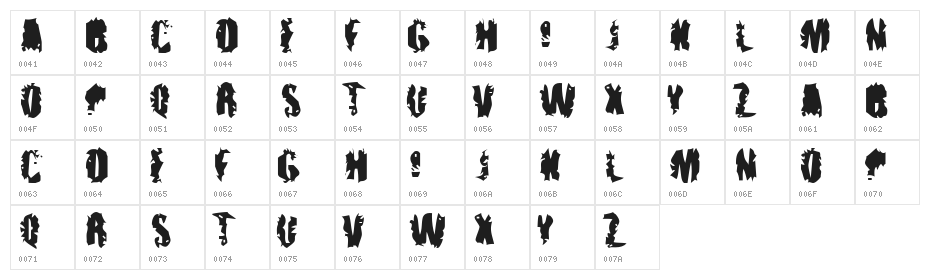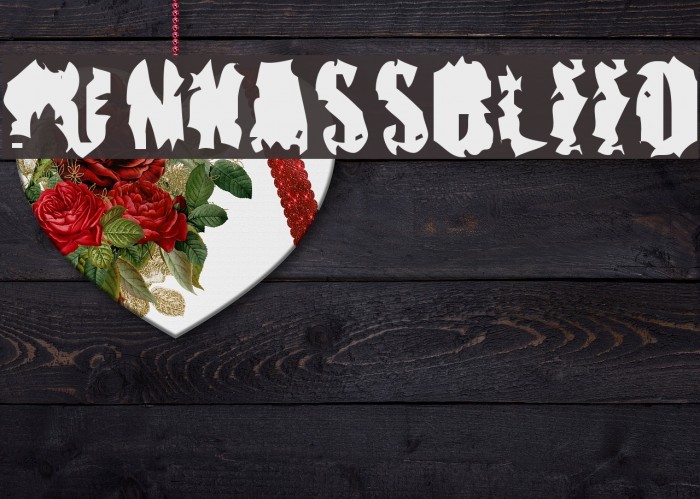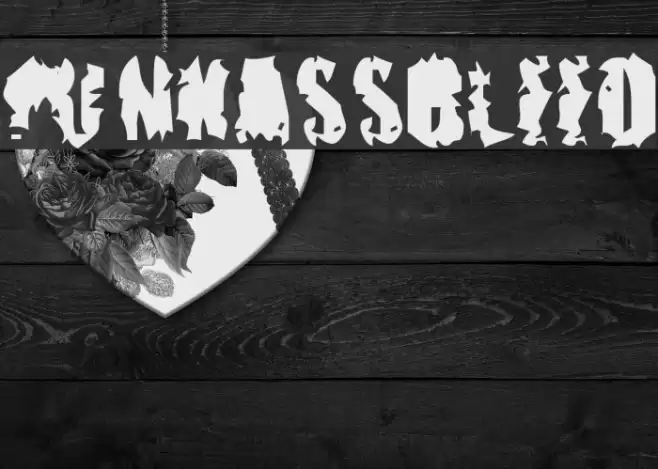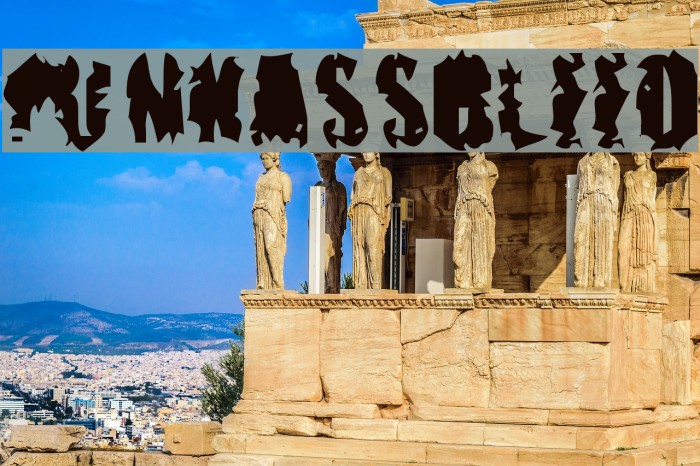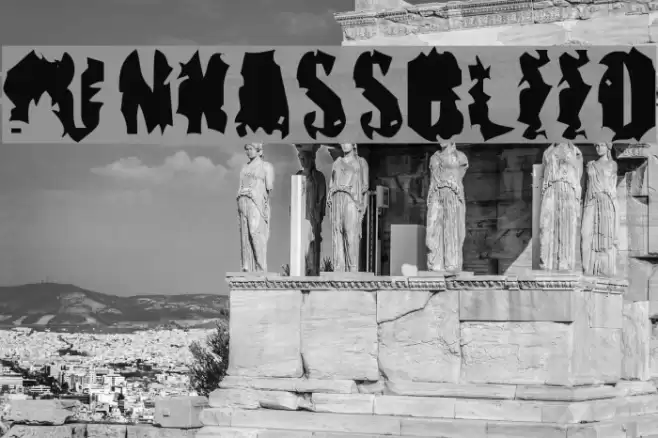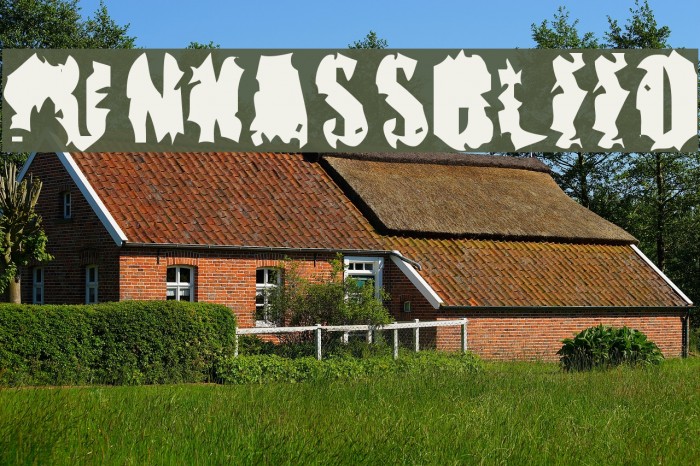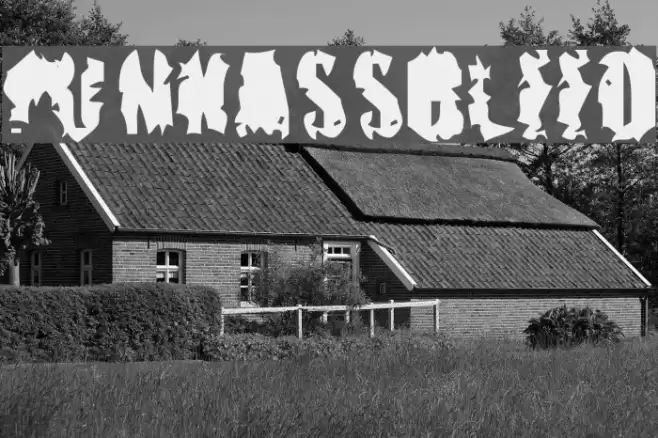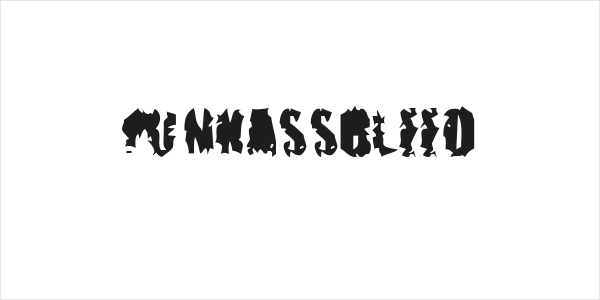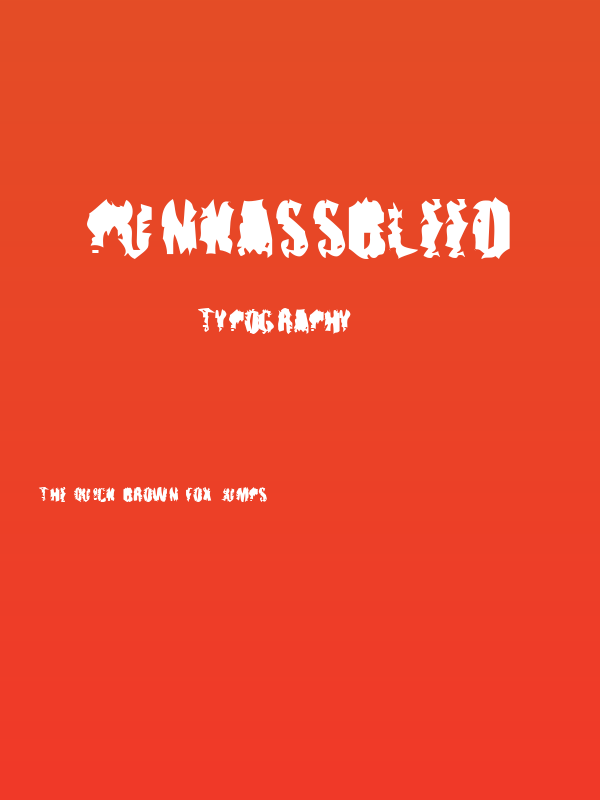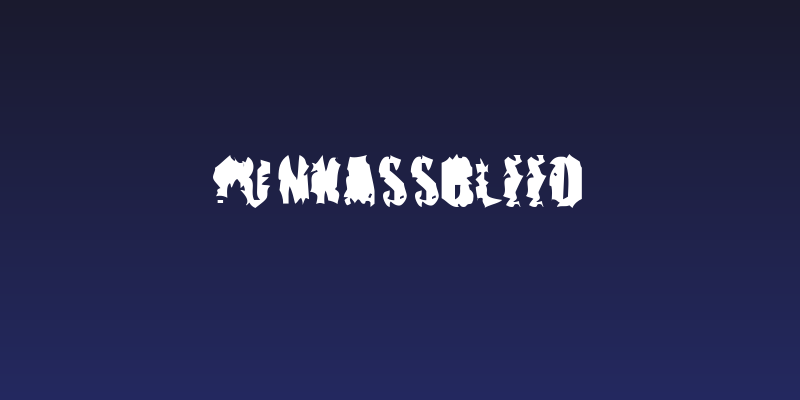
pUNKASSBLEED Font
pUNKASSBLEED Description
This font features a bold and edgy design with jagged, irregular edges that give it a distressed and rebellious appearance. The characters are heavily stylized, with sharp angles and a rough texture that suggests a sense of chaos and intensity. The uppercase and lowercase letters maintain a consistent style, while the numbers and special characters follow the same rugged theme. This font is highly decorative and makes a strong visual impact, suitable for projects that require a bold statement.
| Proposed Projects | Ideal for punk-themed posters, album covers, edgy branding, and any project that requires a bold, rebellious aesthetic. |